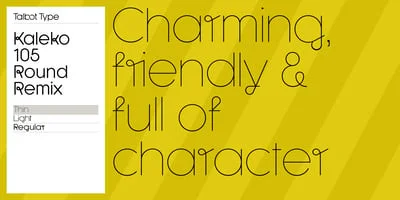
Kaleko 105 Round Remix Font
Kaleko 105 Round Remix Font is perfect for modern remix music branding, contemporary app interfaces, rounded logo designs, friendly tech startup communications, circular design systems, and innovative digital platforms. Its harmonious character makes it ideal for music production studios, DJ equipment manufacturers, creative design agencies, tech innovators, and any application requiring smooth typography that conveys creative remixing, modern sophistication, and the dynamic energy of contemporary digital culture.
Kaleko 105 Round Remix Font is exciting because it reimagines classic typography through creatively rounded letterforms that capture the innovative spirit of remix culture and contemporary design evolution. Its perfectly rounded proportions and modern aesthetic reflect the seamless blending of traditional craftsmanship with cutting-edge creative expression, making it perfect for brands celebrating artistic innovation and cultural remixing. The font's remix character transforms conventional communications into fresh expressions of creative reinvention.
Kaleko 105 Round Remix Font family includes creatively-rounded weight variations typically featuring Light, Regular, Medium, Bold, and Black options with consistent circular styling throughout. The family often incorporates music symbols, remix elements, and contemporary design characters optimized for digital remix applications, providing designers with comprehensive tools for creating authentic, remix-inspired typographic solutions.
When selecting contemporary remix typography solutions, Kaleko 105 Round Remix Font represents an exceptional choice for modern creative projects. This innovative typeface brings instant remix authenticity to any design, making it invaluable for music producers, creative agencies, and tech companies celebrating artistic innovation. Whether you're developing remix music branding, creating contemporary app interfaces, or designing modern creative campaigns, Kaleko 105 Round Remix Font provides the creative innovation and contemporary sophistication essential for expressing remix culture in today's digitally-driven creative marketplace.